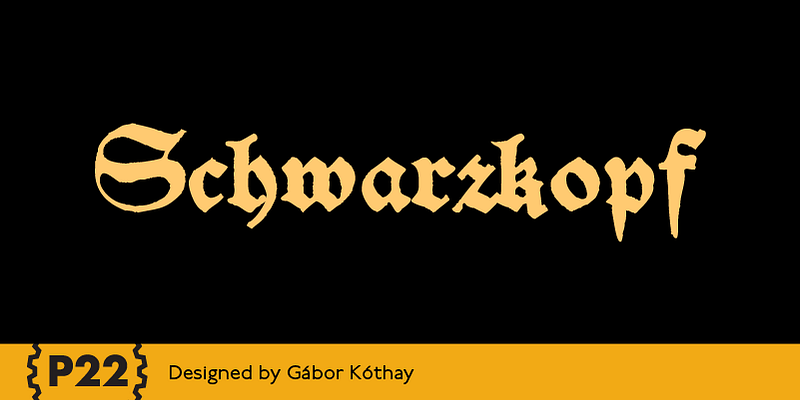
SchwarzKopf Font Free Download is a bold and distinctive display typeface with strong geometric features. Its sharp edges, dramatic contrasts, and powerful presence make it ideal for projects that need to stand out and make an impression, such as posters, branding, advertisements, and headlines. The font’s robust design adds a modern, edgy flair while maintaining legibility and impact.
SchwarzKopf’s unique aesthetic makes it perfect for creative projects requiring a bold, contemporary look with a bit of attitude. Its structured yet dynamic character forms are perfect for designs that want to evoke strength and modernity, especially in high-visibility materials.